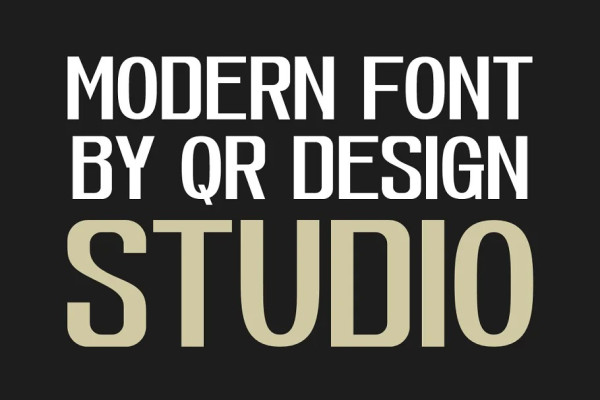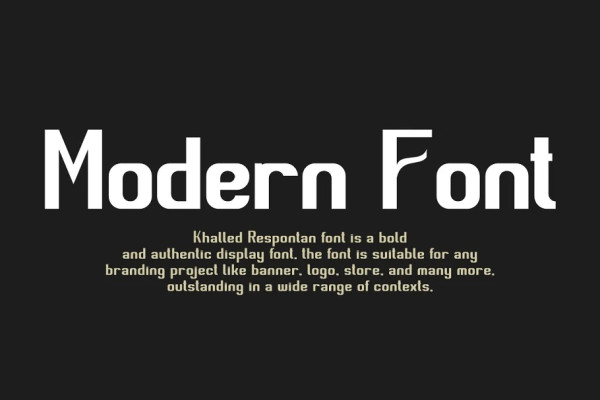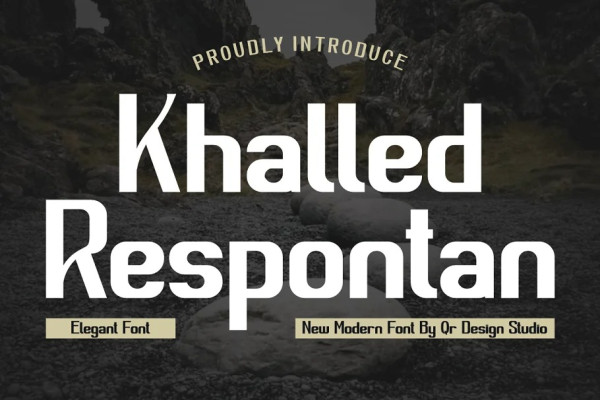
Khalled Respontan Font
Khalled Respontan Font is a bold and authentic display font. The font is suitable for any branding project like logo, sport, store, and many more. Outstanding in a wide range of contexts.